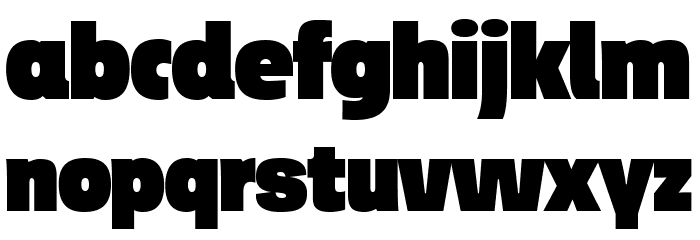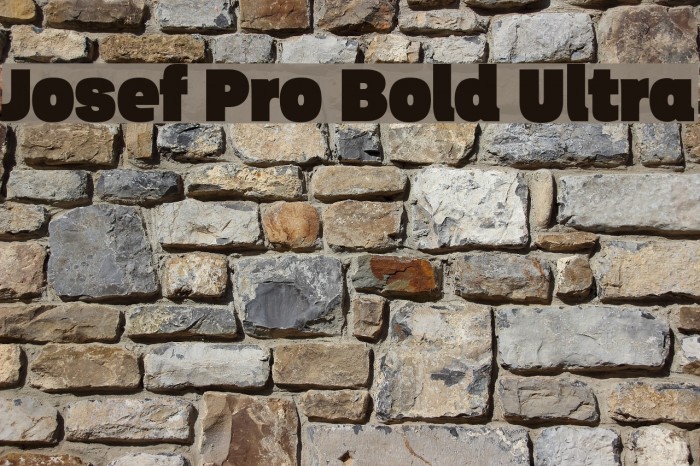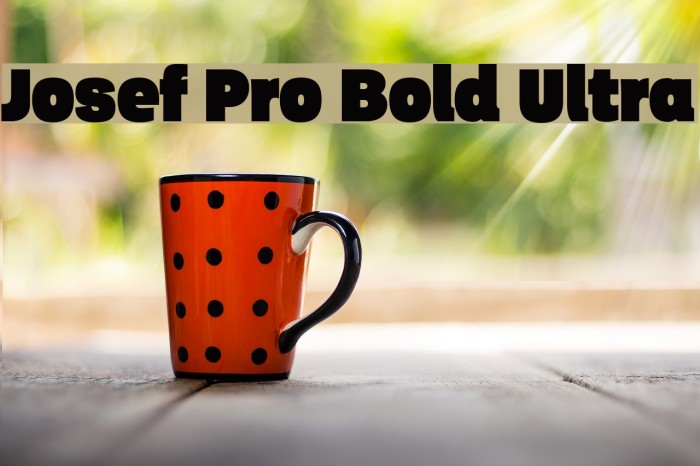
Josef Pro Bold Ultra Font
This font is characterized by its bold and ultra-heavy weight, making it highly impactful and attention-grabbing. The letters are constructed with thick strokes and minimal contrast, giving them a strong and robust appearance. The design is clean and modern, with a geometric influence that ensures each character is easily legible. The uppercase and lowercase letters maintain a consistent style, with rounded edges that soften the overall look. The numerals are equally bold, ensuring they stand out in any context. This font is ideal for making a statement, whether in headlines, posters, or branding materials.
A bold, ultra-heavy font with a modern, geometric style.
- Proposed Projects: Ideal for headlines, posters, branding, and any project requiring a strong visual impact.